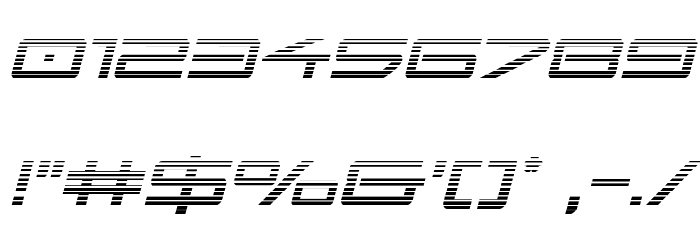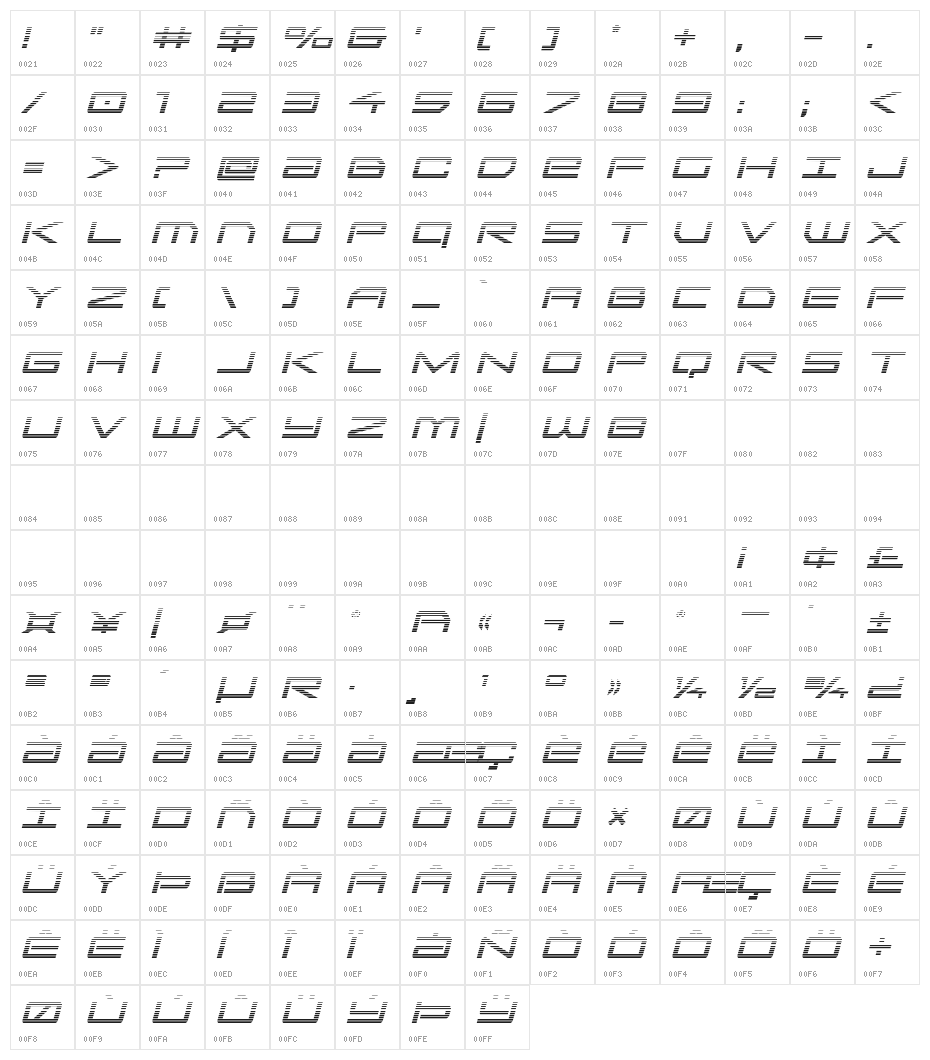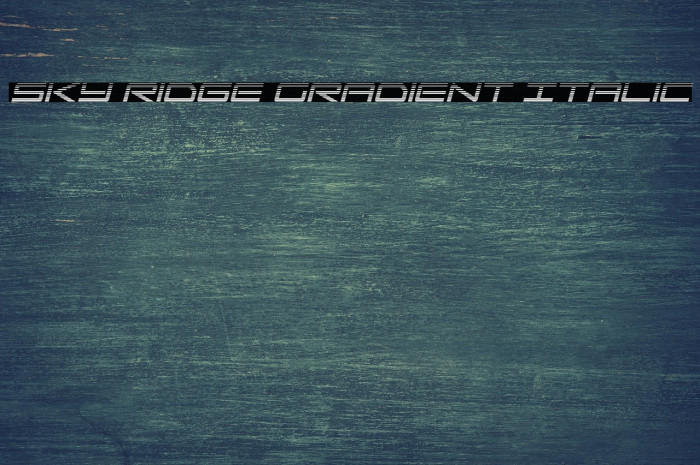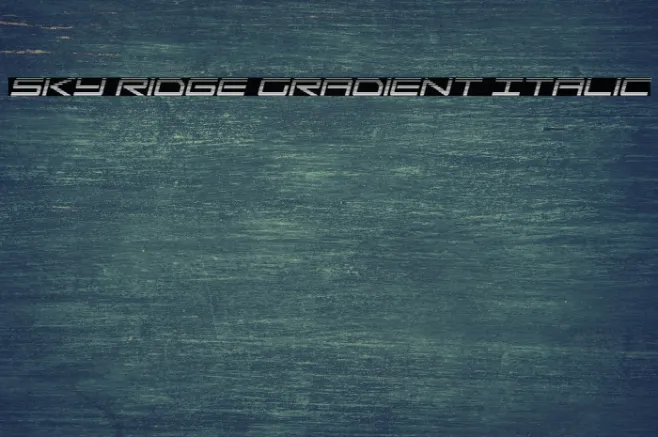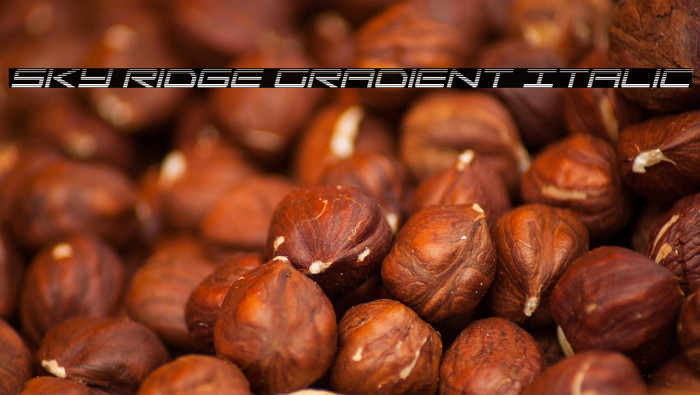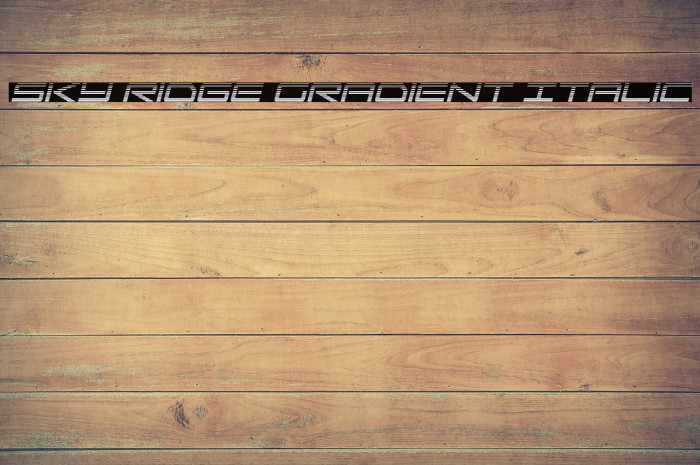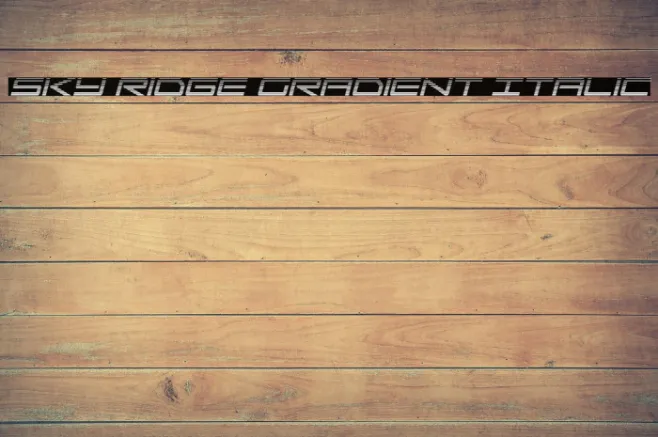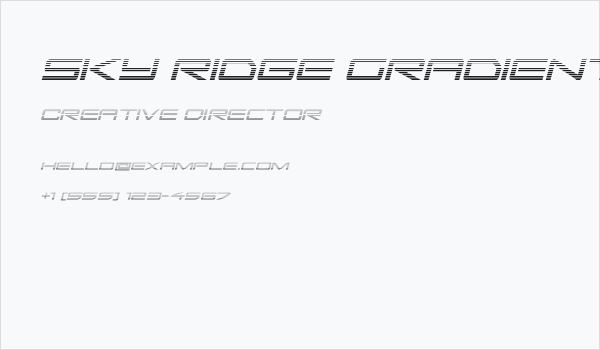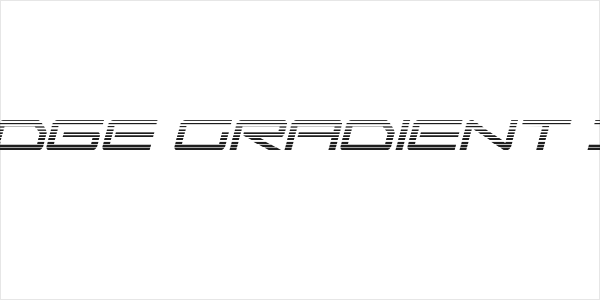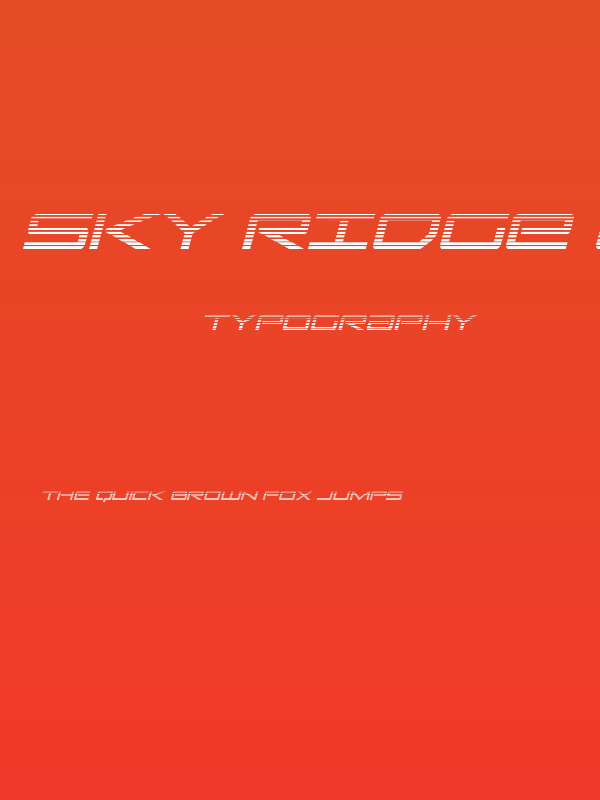
Sky Ridge Gradient Italic Font
Sky Ridge Gradient Italic Description
This font features a futuristic and dynamic design, characterized by its italicized and gradient-like appearance. The letters are composed of parallel lines that create a sense of movement and speed, making it ideal for projects that require a modern and energetic look. The uppercase and lowercase letters maintain a consistent style, with sharp angles and a sleek form. The numerals and special characters are designed to match the overall aesthetic, ensuring a cohesive appearance across all text elements.
| Proposed Projects | Ideal for technology branding, sports team logos, sci-fi movie posters, and modern digital interfaces. |